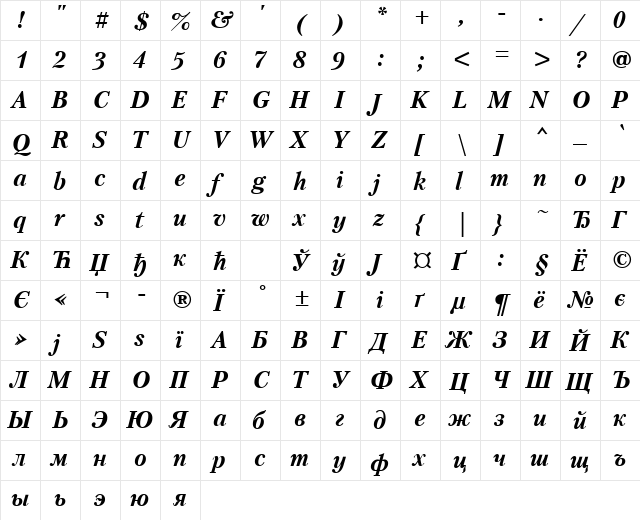
PetersburgCTT BoldItalic
Design Context for PetersburgCTT Typeface
PetersburgCTT is a composed and adaptable typeface that performs quietly and consistently across a wide range of design contexts. The dynamic lean of this cut emphasises speed and emphasis in any layout. Its bold stroke weight gives it real presence on the page.